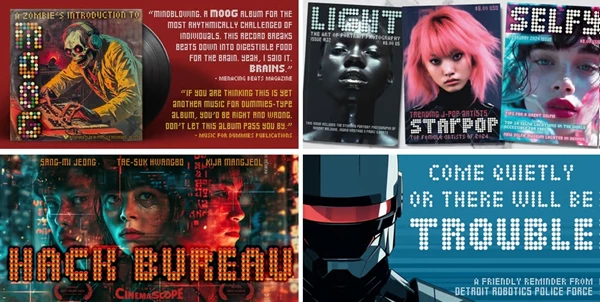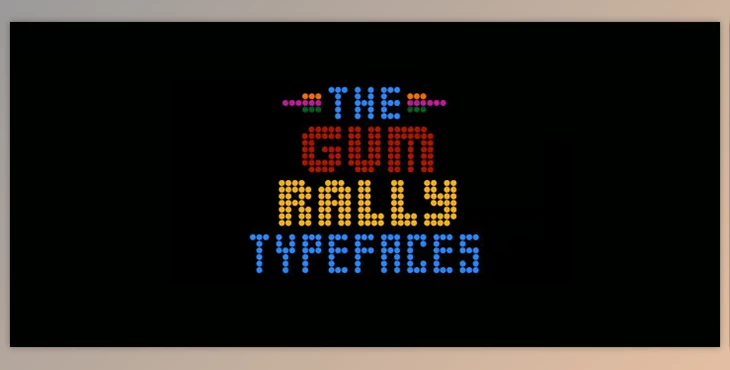
With the aim of innovative ideas in cinematic title design, the AOE Gum Rally font family has its roots in the 1976 Gumball Rally film. This collection includes three distinct dot matrix styles that correlate with various other text featured throughout the film.
Regular is in line with the movie's title written in bold, while Mini mirrors the unique "THE" credit alongside some decorative flourishes. Credits take an eccentric approach to traditional letter cuts. All the fonts are created from film screenshots, making them authentic and further building upon the original designs.